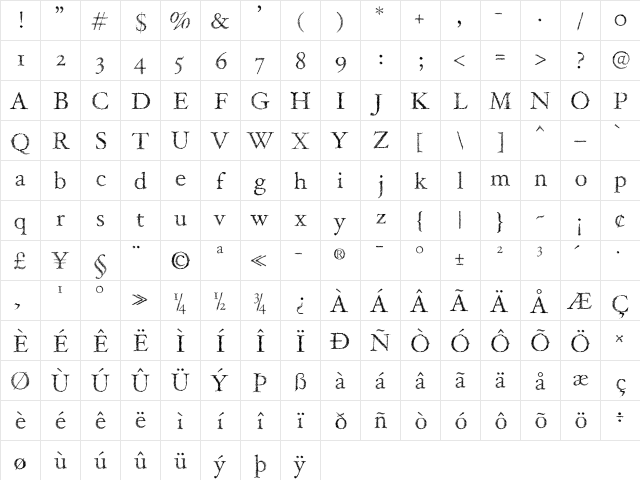
Serif Sketch Regular
Design Context for Serif Sketch Typeface
Serif Sketch carries the refined structure of traditional serif typography, with bracketed terminals and considered proportions that communicate credibility and craft.
Pro Tip: Use Serif Sketch for editorial body copy and considered headline work. Pair with a neutral sans for UI elements or captions to create a classic hierarchy.